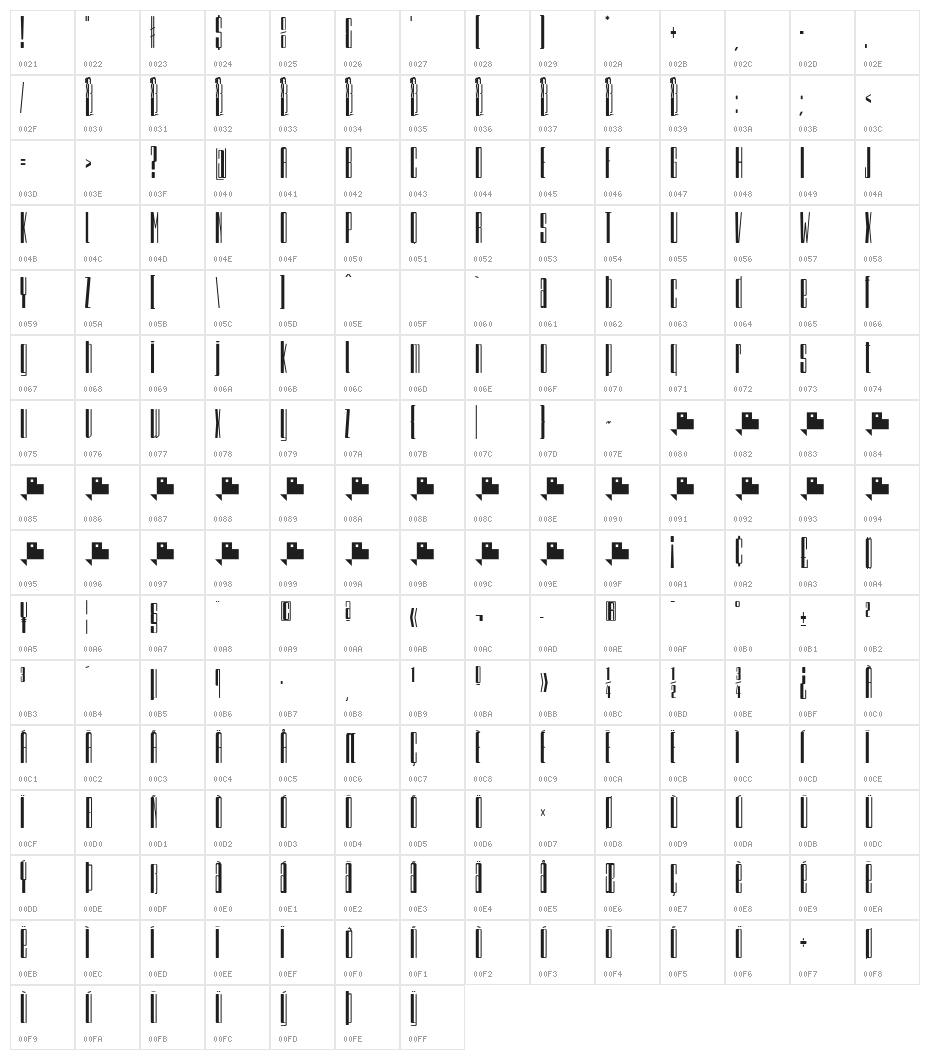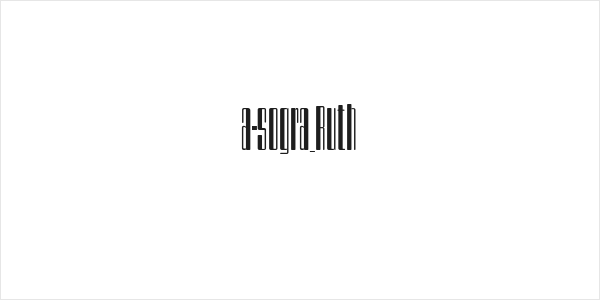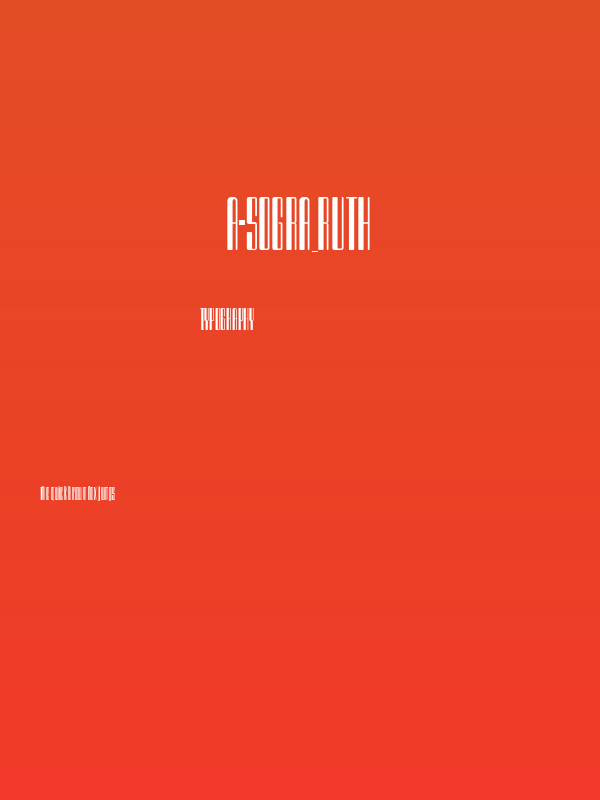
a-sogra_Ruth Font
a-sogra_Ruth Description
This font features a tall and narrow design, characterized by its condensed letterforms and high contrast between thick and thin strokes. The uppercase letters are particularly elongated, giving a dramatic and bold appearance. The lowercase letters maintain the same condensed style, ensuring consistency across the typeface. The numerals and special characters follow the same design principles, making them cohesive with the alphabet. The overall look is modern and sleek, suitable for making a strong visual impact.
| Proposed Projects | Ideal for headlines, posters, and branding projects where a strong visual impact is desired. |